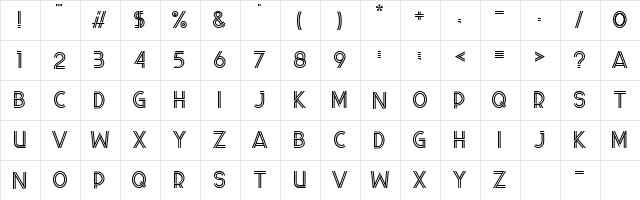
Wander Brave Regular
Design Context for Wander Brave Typeface
Wander Brave takes a measured approach to typography — its balanced proportions and neutral character make it a reliable workhorse for both digital and print work.